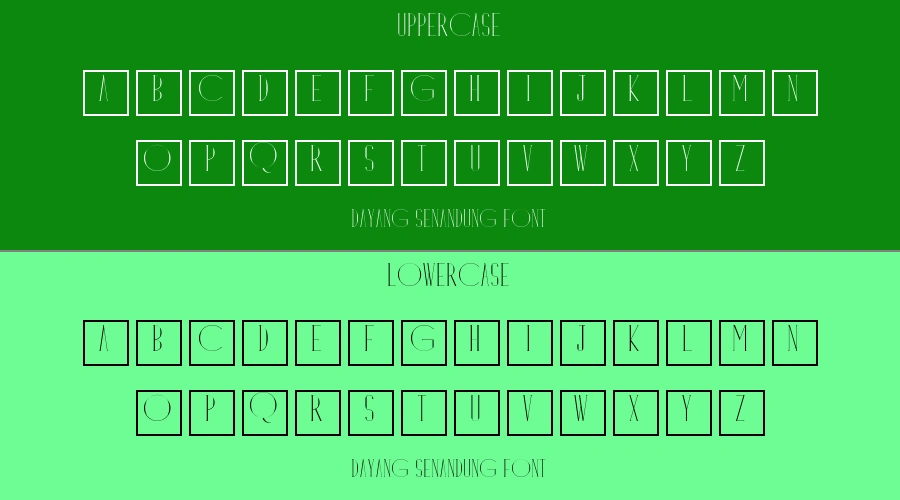
About Dayang Senandung Font
When typographic excellence matters most, Dayang Senandung Font delivers through its thoughtful blend of harmonic curves and functionality. Specially crafted for brand guidelines, it offers the durability and manufacturing quality required for sophisticated design work. Every detail serves a purpose.
The character set showcases thoughtful details like unique personality alongside functional subscript/superscript. This proves especially valuable in research articles, where memory recall directly influences results. Particular attention was paid to ear placement and cultural context during development.